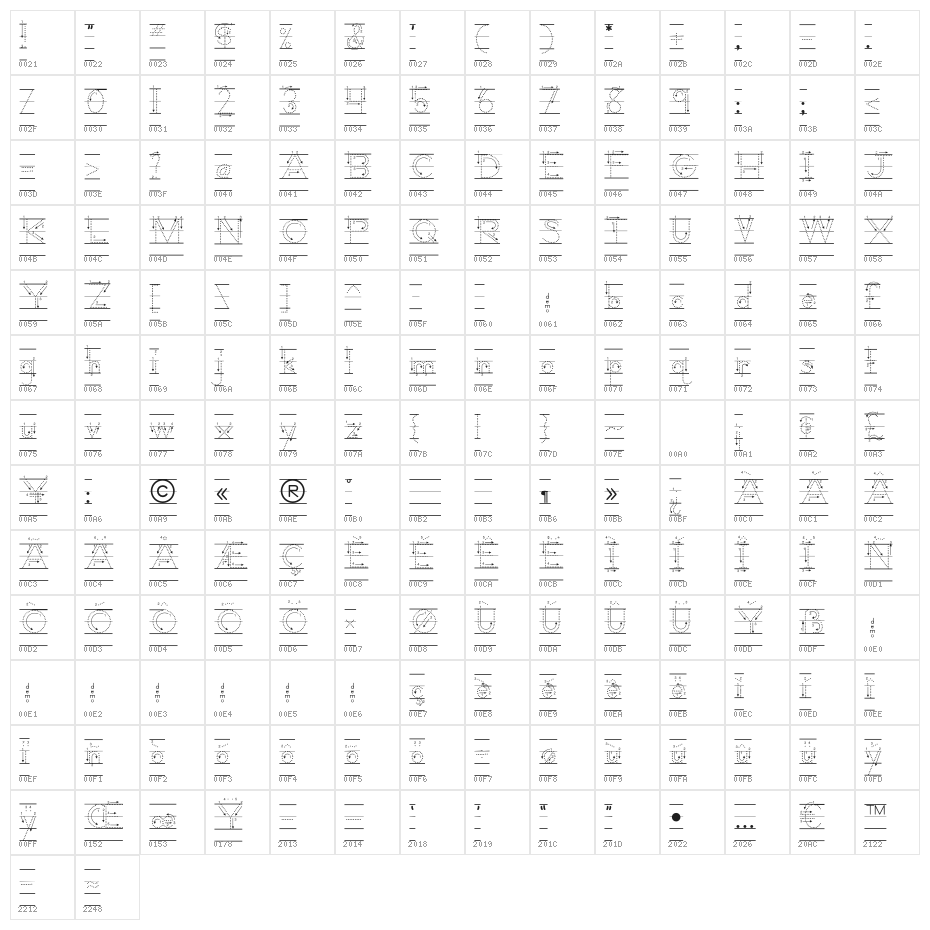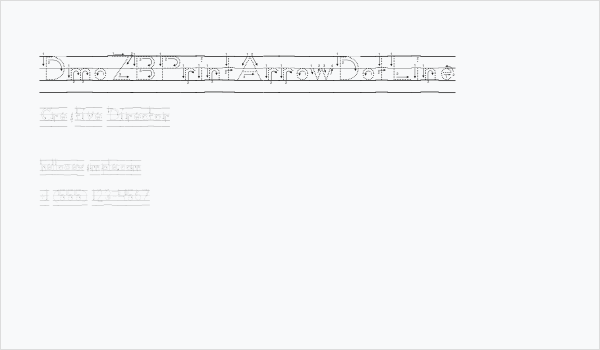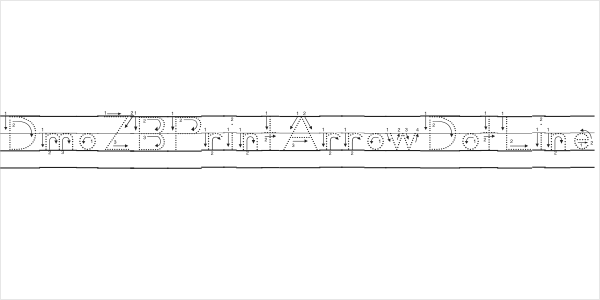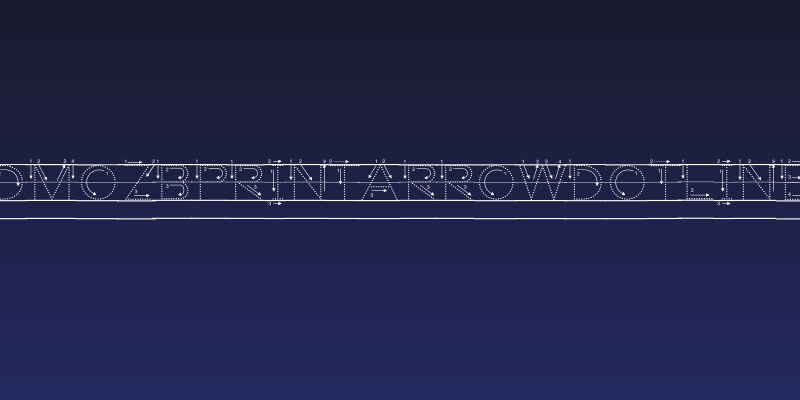
DmoZBPrintArrowDotLine Font
| 整体风格 | Educational |
| 使用场景 | Educational materials, handwriting practice sheets. |
| 推荐项目 | Ideal for educational materials, handwriting worksheets, and children's learning apps. |